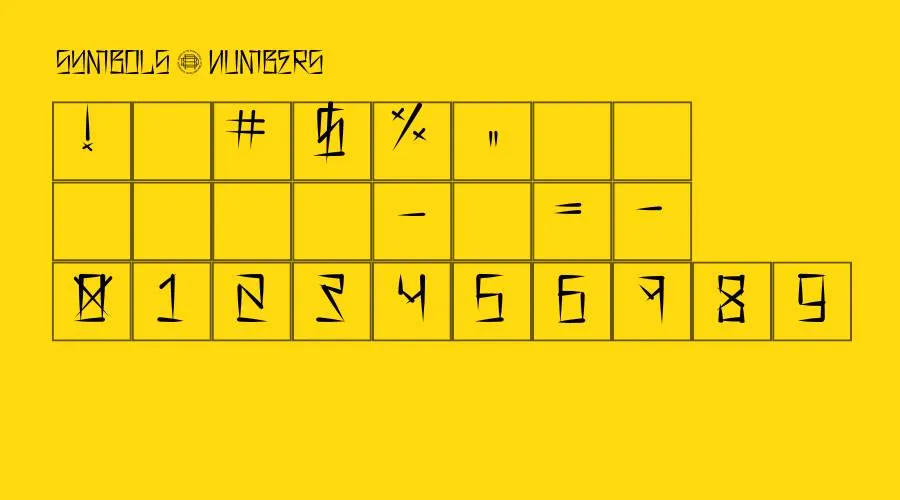
Barrio Rifa Font
About Barrio Rifa Font
The Barrio Rifa Font was created by a famous typographic designer known as the name of Ricardo Saul Castellanos Pabello. You may easily download it free from this site with unique and stylish characters. It looks like the script texture family and is perfect for various operating systems like, android, MAC, Windows, and many more.
You can combine it with many other fonts, the closest texture to this font is little cowboy font and you may create elegant designs. This font is perfect for CSS, CDN, and adobe photoshops.
This font has an online generator tool, in which, you may change all your normal type of alphabet characters, into stylish and new trendy shops. It will help you to make urgent projects, with a modern look. It contains different types of characters such as capital letters, digits, signs, symbols, and punctuations.
The Barrio Rifa Font is a famous texture and is suitable for different purposes because popular graphic designers utilize it for a variety of procedures. This typeface noted a modern and stylish feel to it, which causes it great for use in logos, headlines, trade cards, and other branding applications.
You may also utilize this font for many online platforms such as canva, web projects, branding designs, and many more. The special shapes and angles of this font give it a creative quality that creates it stand out from the rest.
The pairing quality of this typeface is stunning and can be paired with kazan display ssi font. You can also utilize this gorgeous typeface in various tasks such as magazines, books cover pages, text, layouts, titles, t-shirt designs, invitation cards, fabric designs, homeware designs, business cards, wedding cards, and so on.
The Barrio Rifa Font was created by a famous typographic designer known as the name of Ricardo Saul Castellanos Pabello.
A similar to this attractive typeface is upright font and you may make modern projects.